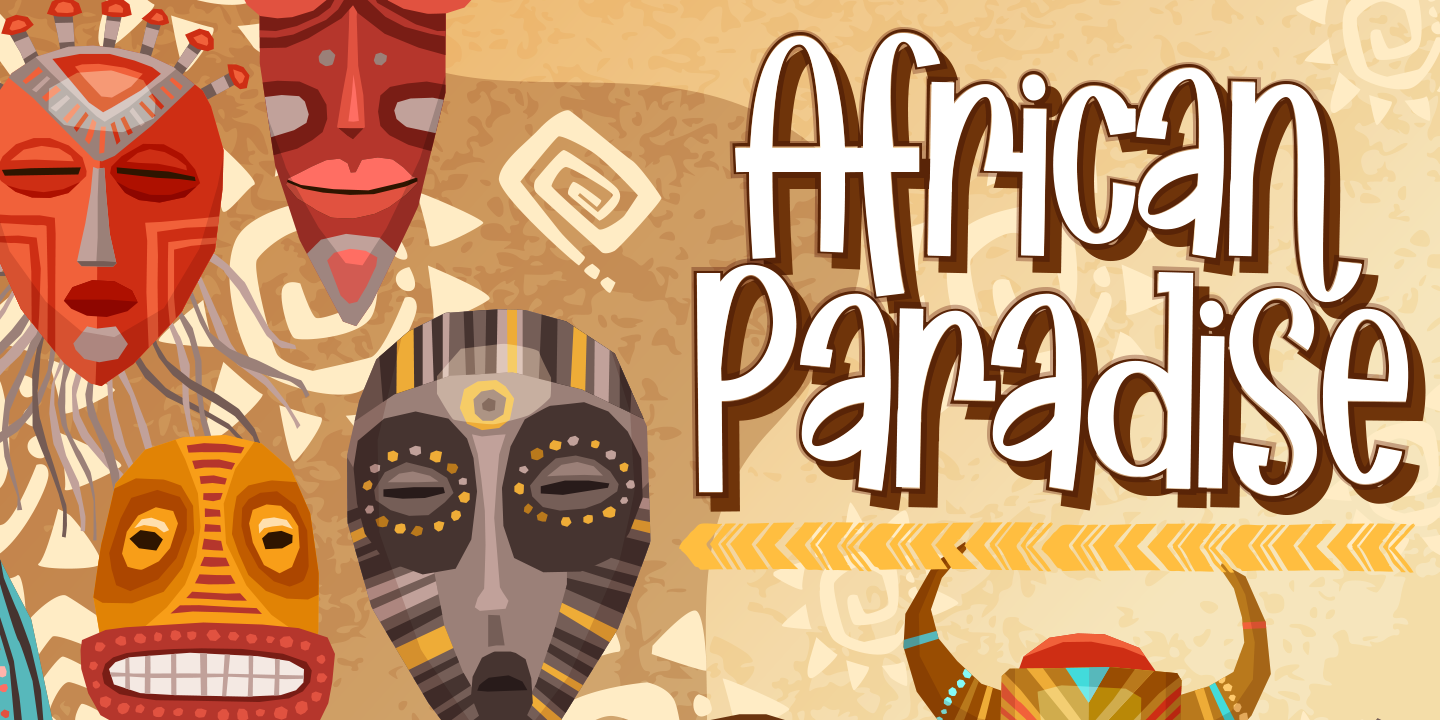
This expressive font excels in various design applications including cultural festival posters, African restaurant branding, travel tourism materials, ethnic fashion labels, world music album covers, documentary film titles, cultural museum displays, and artisan craft packaging. Its authentic character makes it ideal for projects celebrating African heritage and tropical aesthetics.
African Paradise Font is exciting because it captures the essence of African tribal art, wildlife imagery, and natural landscapes through sophisticated typography. The font incorporates organic curves reminiscent of savanna horizons, decorative elements inspired by traditional patterns, and character formations that echo ancient African scripts while maintaining modern readability and professional quality.
The African Paradise Font family includes multiple stylistic variations: Regular, Bold, Decorative, and Ornamental styles. Some versions feature ethnic symbols, tribal motifs, and cultural embellishments that enhance the authentic African aesthetic. These family members provide designers with comprehensive tools for creating culturally sensitive and visually striking compositions.
Whether you're developing cultural projects, tourism campaigns, or artistic endeavors, African Paradise Font Free Download delivers exceptional authenticity and visual warmth. This font transforms standard text into culturally rich visual narratives that honor African traditions while serving contemporary design needs with remarkable artistic depth and cultural significance.